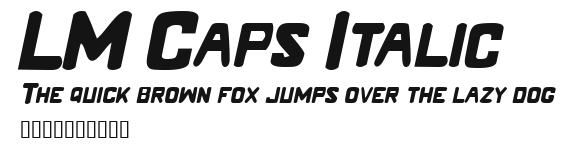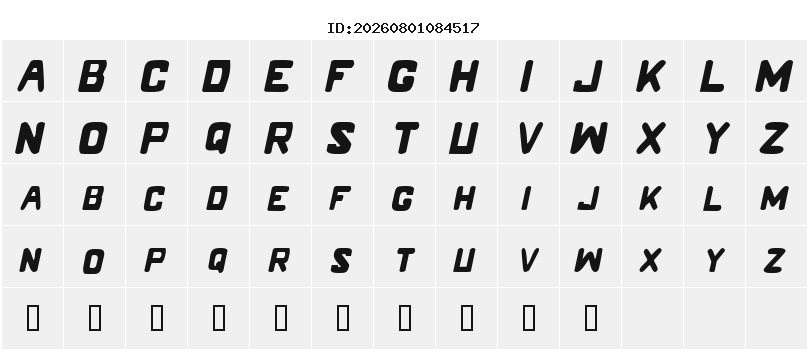
• Font Name: LM Caps Italic
• Font ID: Macromedia Fontographer 4.1 LM Caps Italic
• Full Font Name: LM Caps Italic
• Version: Macromedia Fontographer 4.1 9/7/00
• PostScript Name: LMCapsItalic
• Character Count: 64
About LM Caps Italic.ttf
LM Caps Italic.ttf is a modern, elegant sans-serif font designed for ultimate readability and visual harmony. Perfect for branding, headlines, web design, and print materials.